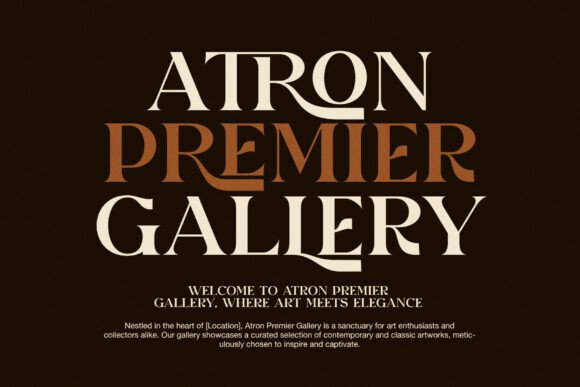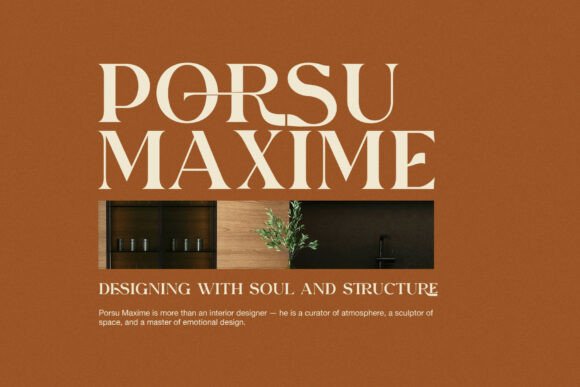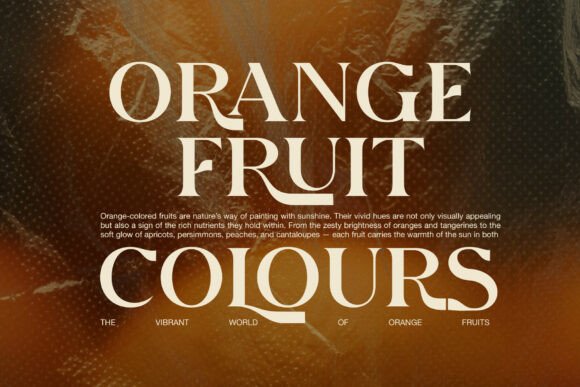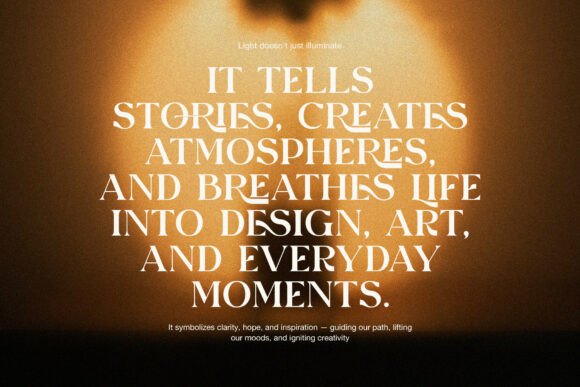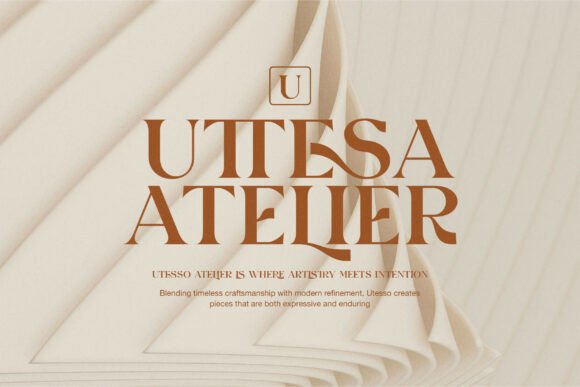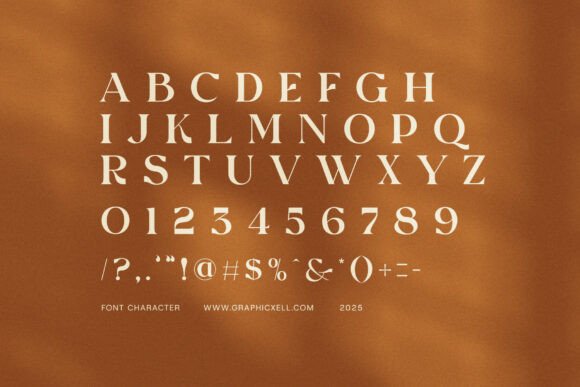
Introduction to Corige Font
Corige Elegant Serif Font is a modern serif typeface designed to bring style and balance to your creative work.
With its clean, proportional form, this font adapts seamlessly across various branding needs Whether youโre working on a logo, website, or printed layout, Corige helps your design stand out with quiet sophistication.